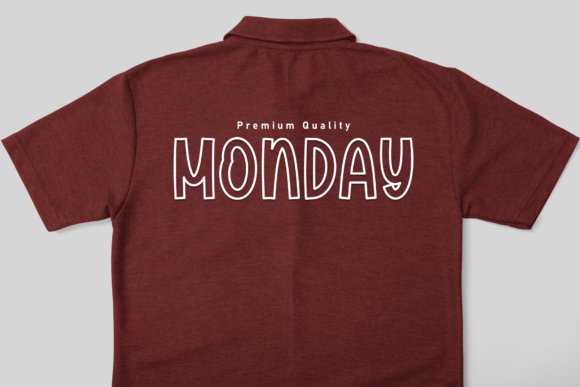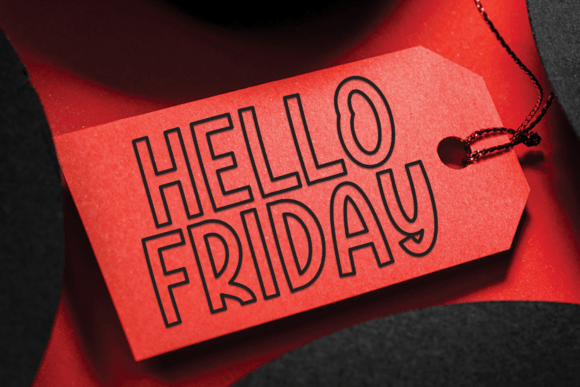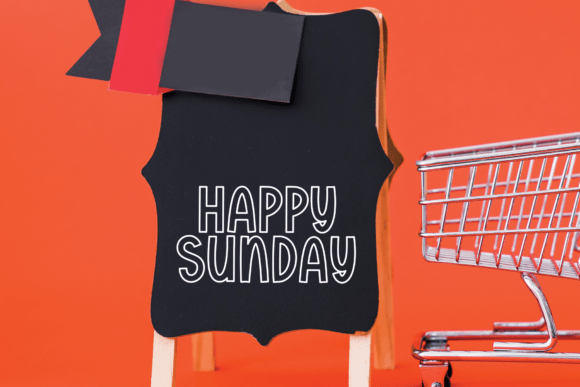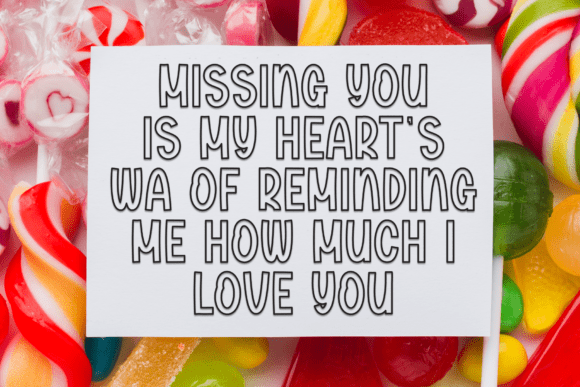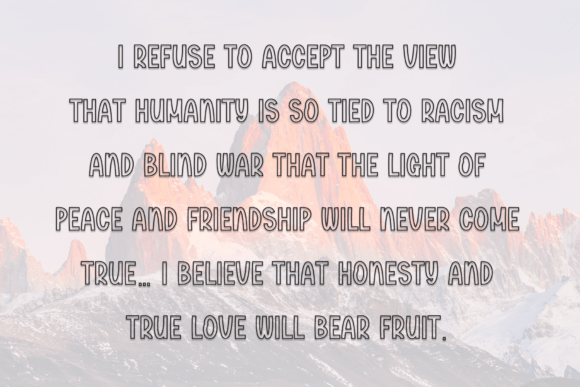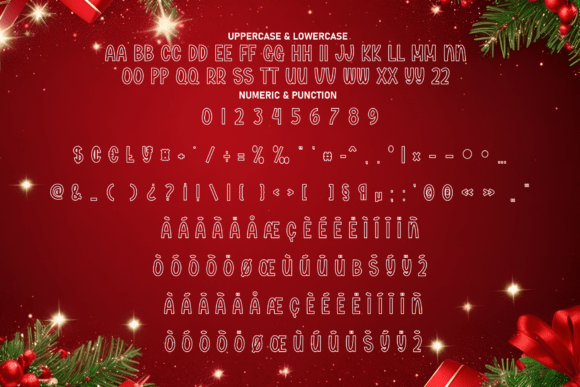
Deck the Halls with a Funny Christmas Font: Adding Whimsy to Your Designs
It’s the most wonderful time of the year! As designers and crafters, we’re always on the lookout for unique and festive elements to make our projects shine. If you’re looking to add a dash of fun and personality to your holiday designs, look no further than a funny Christmas font! In this article, we’ll introduce you to a charming yet cheery handwritten display font that’s sure to bring a smile to your face and a touch of magic to your creations.
Introducing a Charming Handwritten Display Font
Our featured font is a delightful, handwritten display font that’s perfect for adding an enchanting touch to wedding invitations, personal cards, or any design project craving a dash of fun. With its quaint and delightful character, this font infuses an engaging charm into your art, setting a graceful, jovial tone that’s sure to captivate your audience.
The Perfect Blend of Sweetness and Friendliness
This funny Christmas font exudes an allure of sweetness and friendliness, making it an ideal choice for designers and crafters who want to create a warm and inviting atmosphere in their designs. Whether you’re working on a holiday-themed project, a wedding invitation, or a personal card, this font is sure to add a touch of whimsy and personality to your artwork.
With this funny Christmas font, the design possibilities are endless! Here are just a few ideas to get you started:
- Holiday-themed designs: Add a dash of fun and festivity to your holiday designs, from Christmas cards to winter-themed social media graphics.
- Wedding invitations: Make your wedding invitations truly special with a personal touch of whimsy and charm.
- Personal cards: Add a touch of personality to your personal cards, from birthday greetings to thank-you notes.
- Design projects: Infuse your design projects with a dash of fun and personality, from branding and packaging to social media graphics and more.
Why Choose This Funny Christmas Font?
So why choose this funny Christmas font for your designs? Here are just a few reasons:
- Unique and eye-catching: This font is sure to stand out in a crowd, adding a touch of personality and whimsy to your designs.
- Easy to read: Despite its playful and handwritten nature, this font is easy to read and understand, making it perfect for a wide range of design applications.
- Versatile: This font can be used in a variety of design contexts, from digital to print, and is suitable for a range of design styles and themes.
Tips for Using This Funny Christmas Font
Here are a few tips for getting the most out of this funny Christmas font:
- Experiment with colors: Try pairing this font with a range of colors, from bright and bold to pastel and soft, to create a unique and eye-catching effect.
- Play with sizes: Experiment with different font sizes to create visual interest and hierarchy in your designs.
- Combine with other fonts: Try pairing this font with other fonts to create a unique and interesting typographic combination.
In conclusion, this funny Christmas font is a charming and cheery addition to any design project. With its quaint and delightful character, it’s sure to infuse your art with an engaging charm and a touch of whimsy. Whether you’re a designer or crafter, this font is perfect for adding a dash of fun and personality to your holiday designs, wedding invitations, personal cards, and more. So why wait? Download this font today and enhance your creative journey with a touch of magic and wonder!